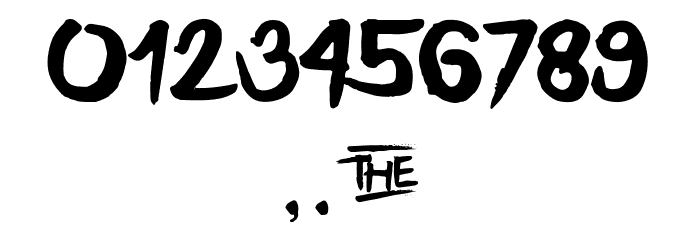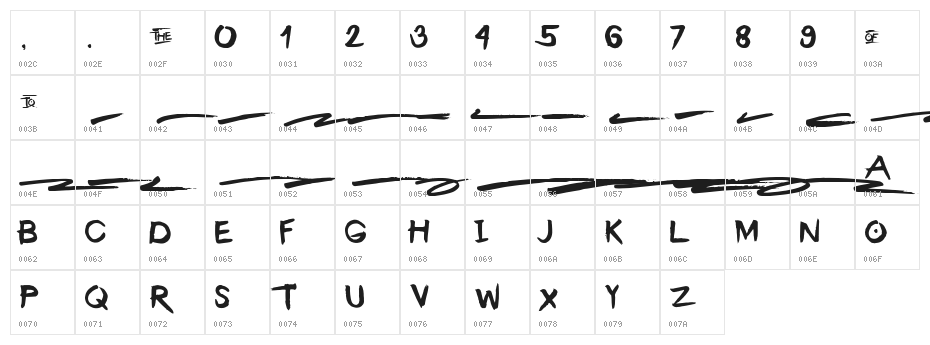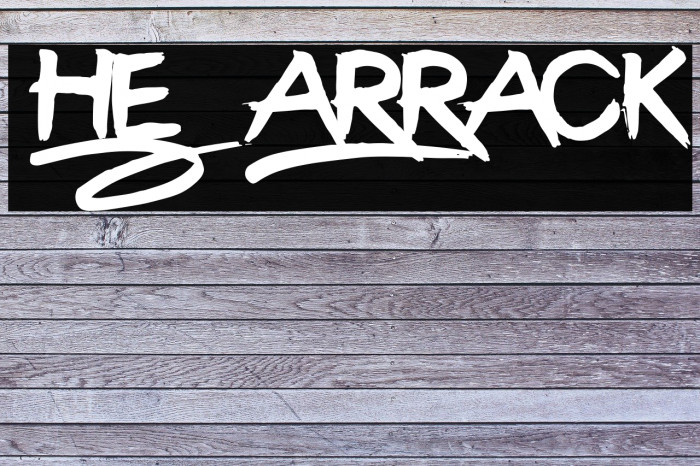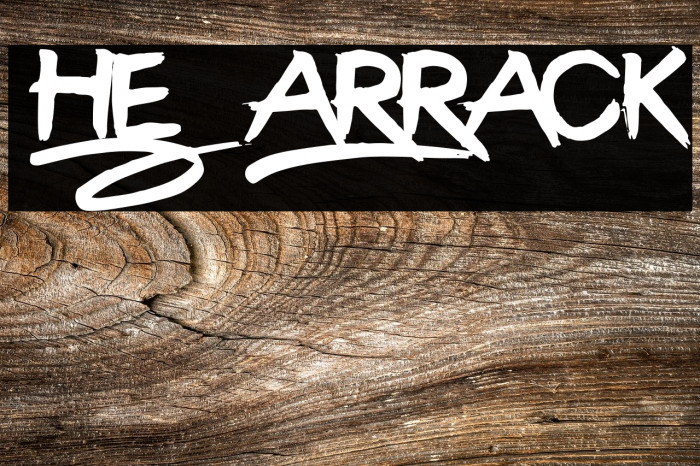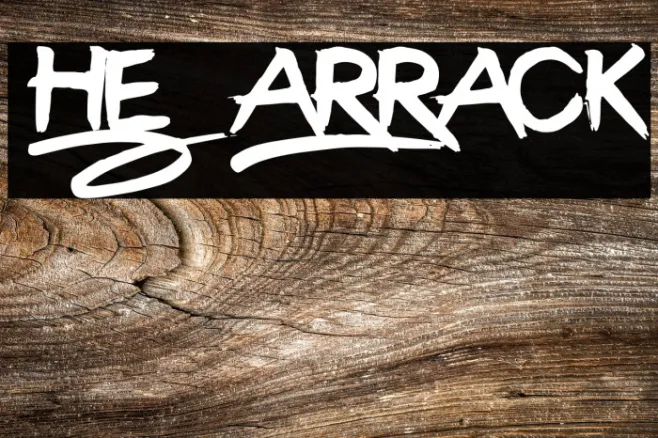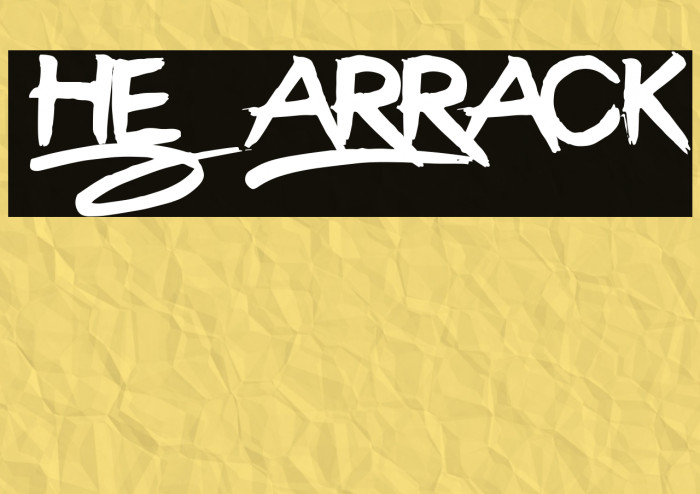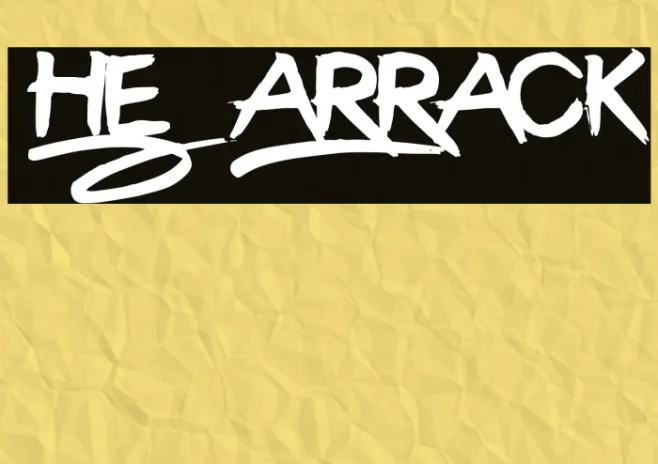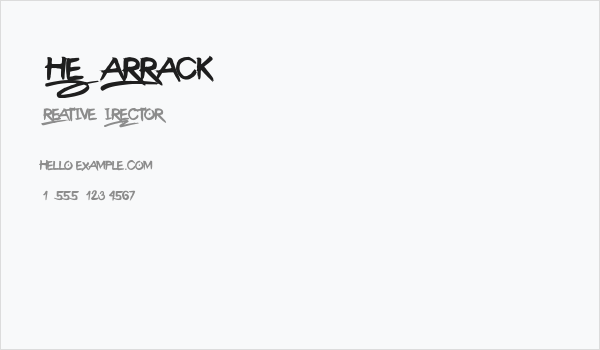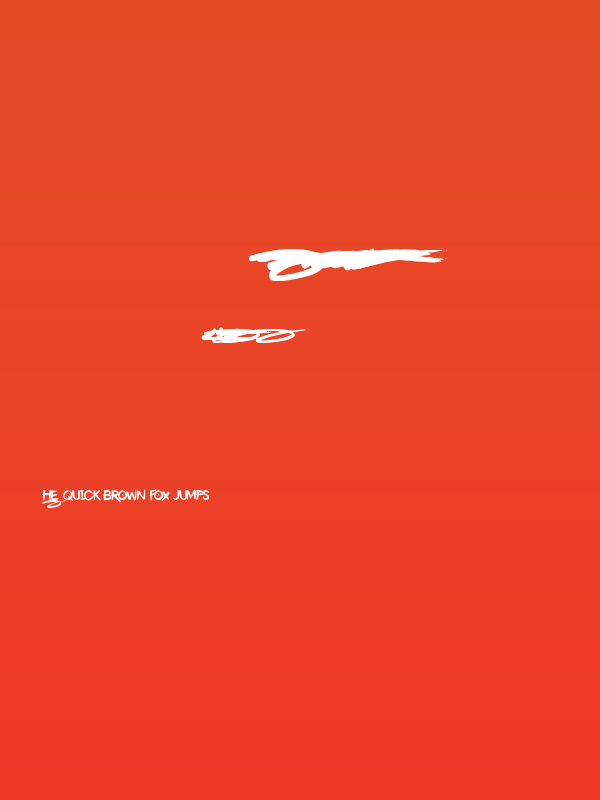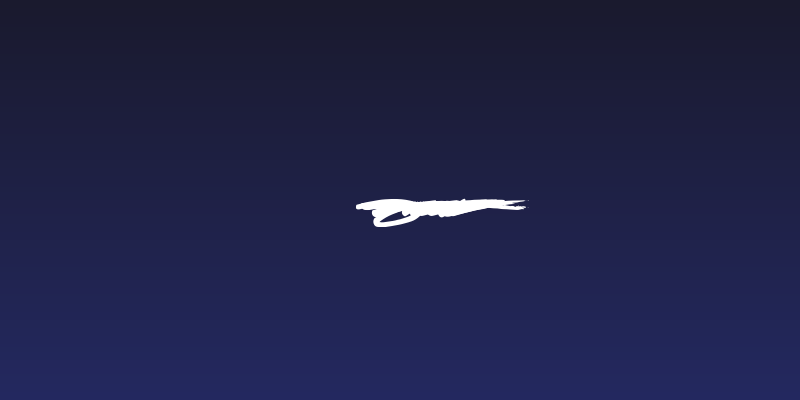
The Barrack Font
The Barrack Description
This font features a bold, expressive style with a hand-drawn appearance. The characters are uneven and dynamic, giving a sense of movement and energy. The strokes are thick and vary in width, creating a high contrast between the thick and thin parts of each letter. The overall look is artistic and somewhat chaotic, reminiscent of graffiti or brush strokes. This font is designed to stand out and make a statement, with its unique and unconventional forms.
| Proposed Projects | Ideal for street art-inspired designs, edgy posters, album covers, and creative branding projects. |